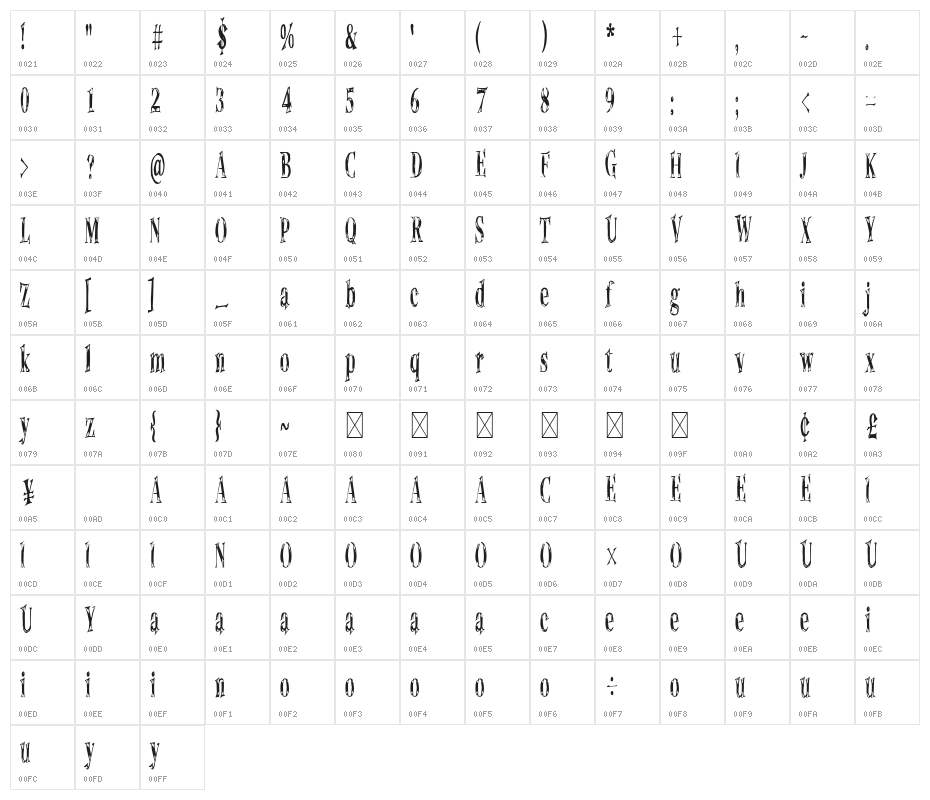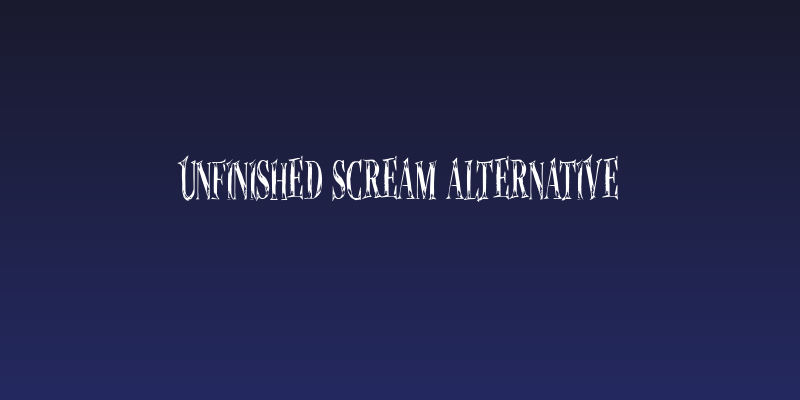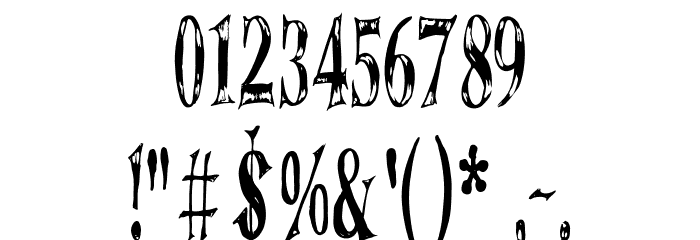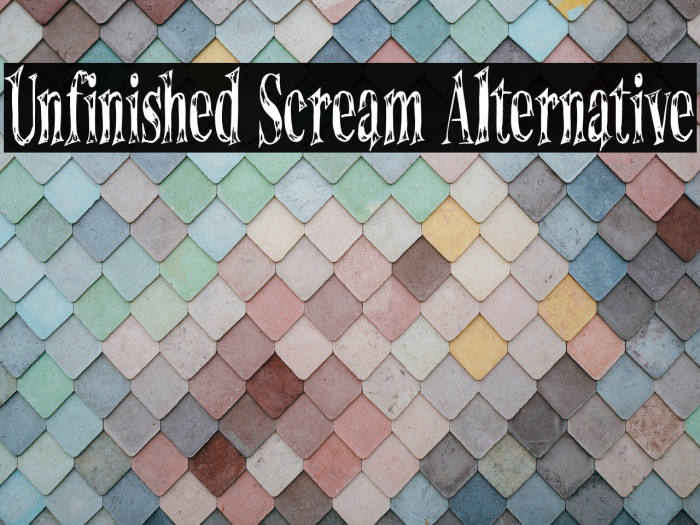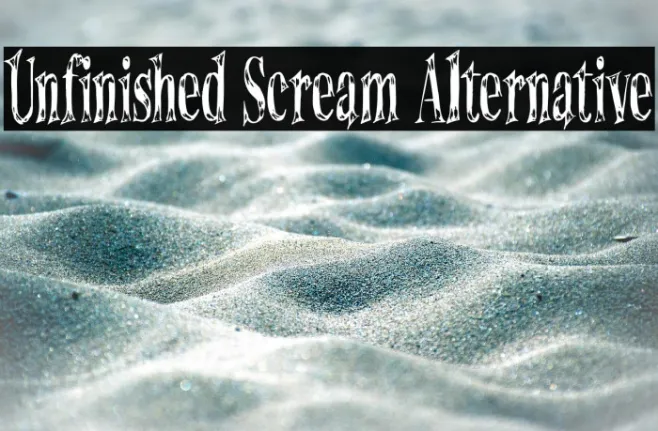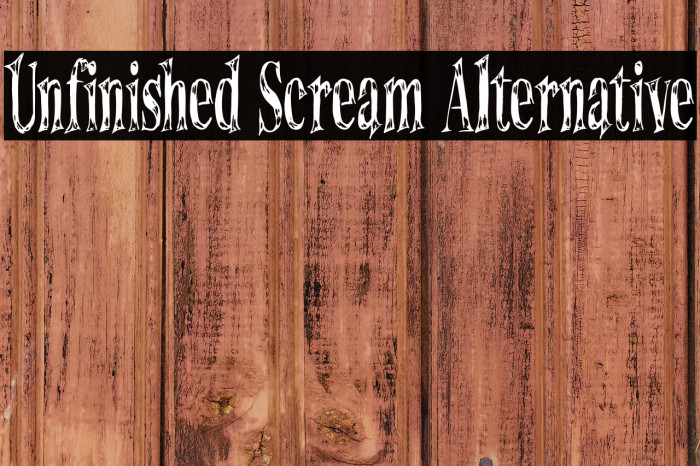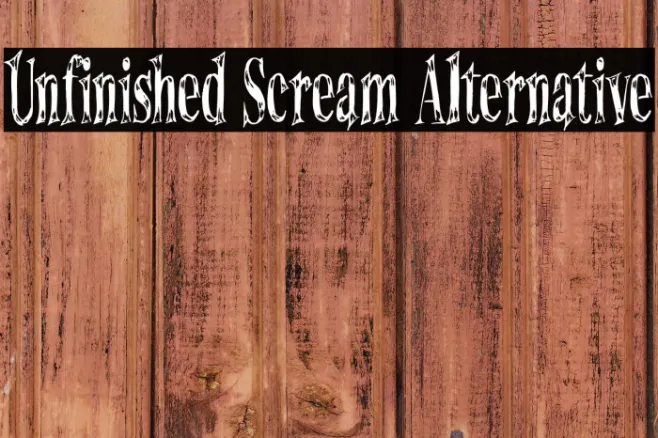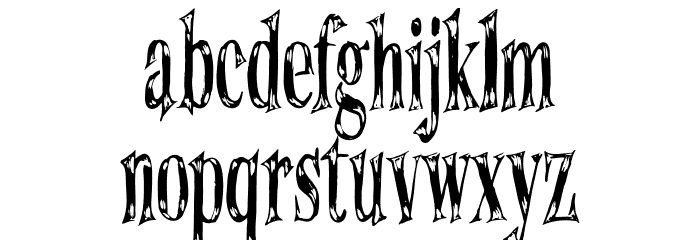
Unfinished Scream Alternative Font
Unfinished Scream Alternative Description
This font features a dramatic and expressive style, characterized by sharp, jagged edges and a distressed appearance. The letters appear as if they are screaming or in motion, with irregular strokes that give a sense of urgency and intensity. The uppercase and lowercase letters maintain a consistent theme, with exaggerated serifs and a hand-drawn quality. The numbers and special characters follow the same aesthetic, making the font suitable for projects that require a bold and unconventional look.
| Use Case | Headlines, Posters, Logos |
| Proposed Projects | Ideal for horror-themed posters, album covers, Halloween invitations, or any project requiring a bold, edgy aesthetic. |